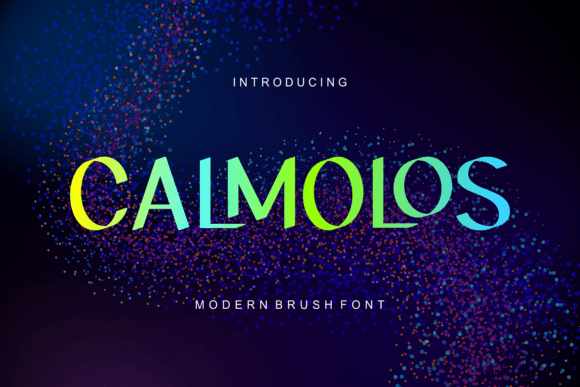
Introduction to Calmolos Font
Calmolos is an elegant and bold serif font.
Fall in love with its incredibly versatile style and use it to create gorgeous wedding invitations, beautiful stationary art, eye-catching social media posts, and much more .
Key Features of Calmolos Font
Why Choose Calmolos Font?
Calmolos Font offers exceptional quality and versatility, making it a valuable addition to your design toolkit. Whether you’re creating for personal projects or commercial use, Calmolos Font delivers professional results.